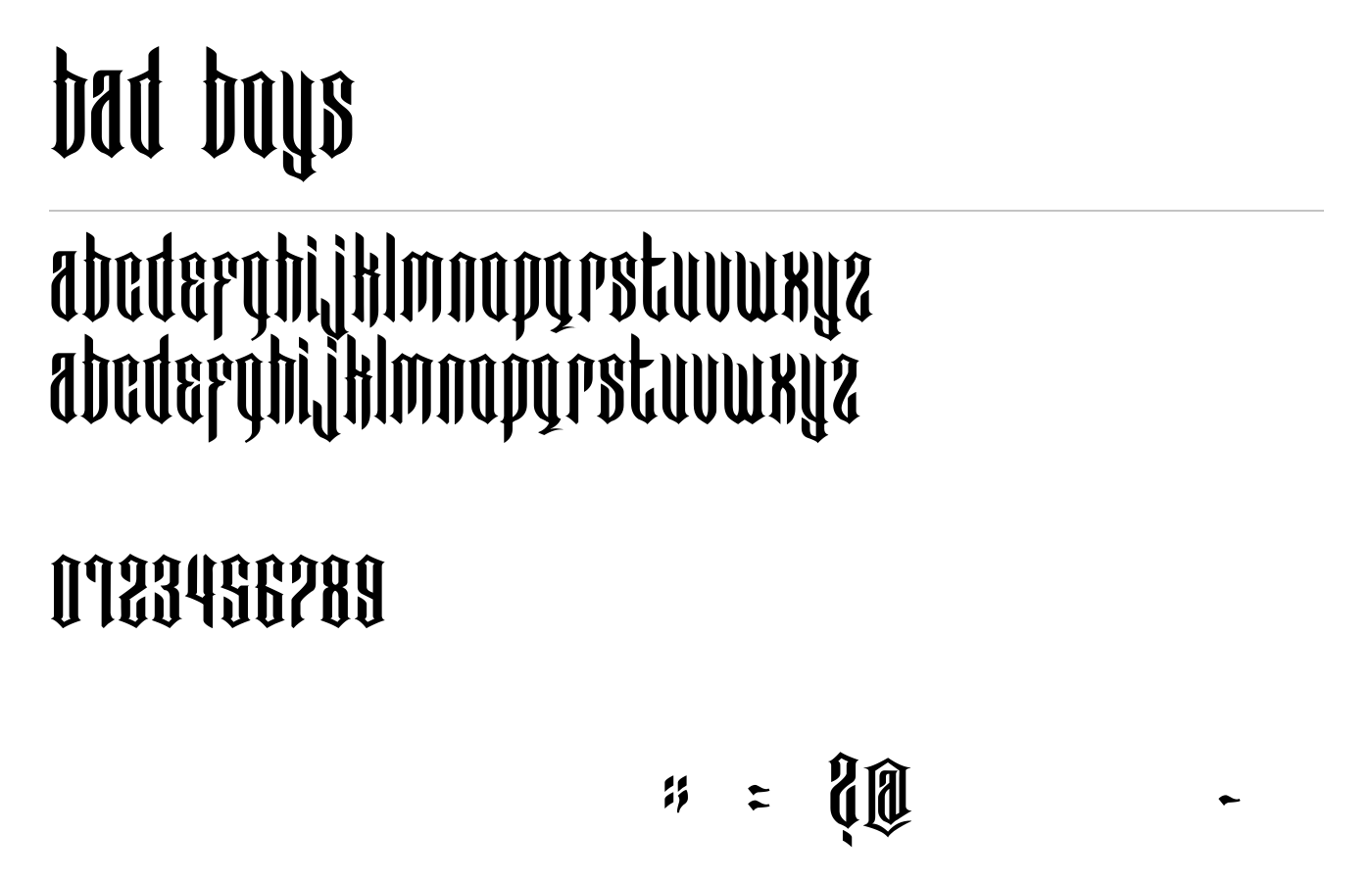
Bad Boys is a striking blackletter-style font with narrow, tall letterforms and sharp, angular edges that create a powerful, gothic impression. Its tightly spaced characters and bold strokes give it a dramatic, edgy personality, making it ideal for branding, logos, and designs that want to evoke a dark, rebellious, or vintage vibe. This font works best in headlines and display uses where its distinctive style can stand out and command attention.
Bad Boys Font
About Bad Boys Font